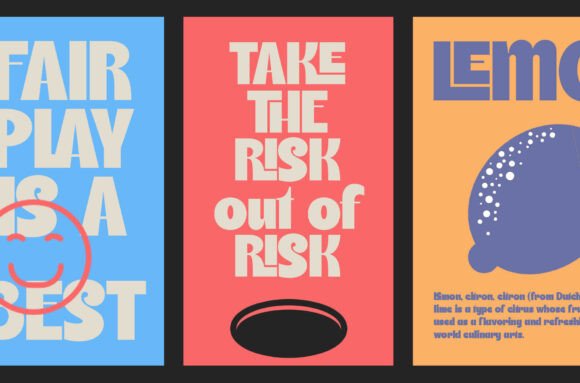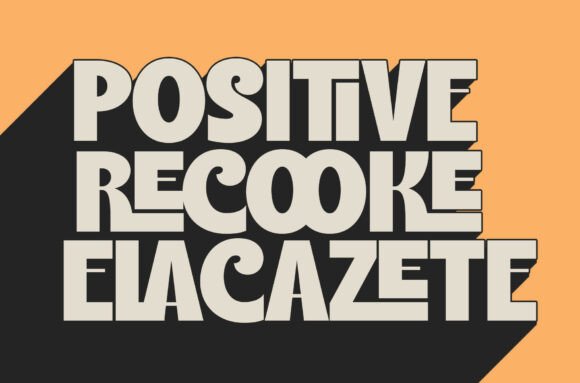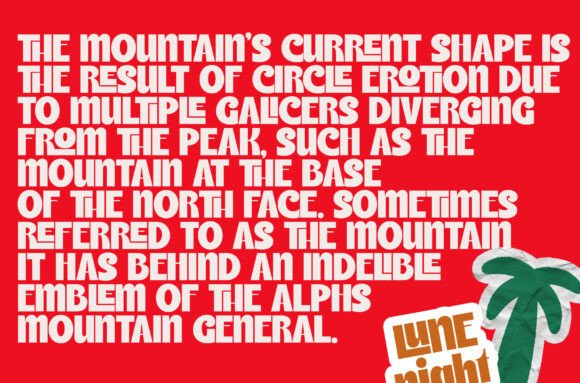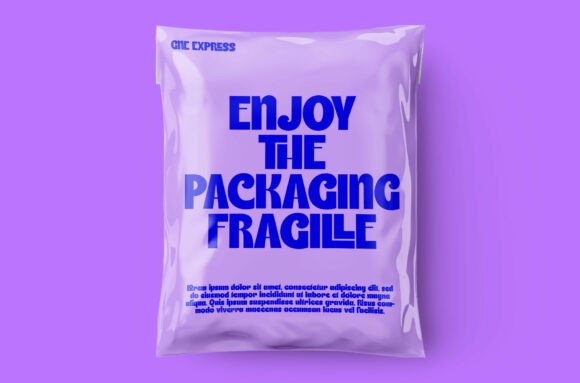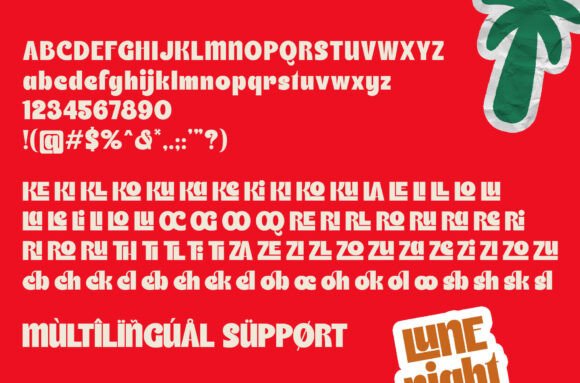
Introduction to Lune Night Font
Have you ever stared at a blank canvas, searching for the perfect font to bring your creative vision to life? The moment when the right typeface clicks, and your design transforms from ordinary to extraordinary, is a magical one. For designers, this moment is a constant quest, and we’re excited to introduce a game-changing tool that can elevate your projects to new heights: the Lune Night Font.
This powerful modern display font is more than just a design resource – it’s a statement piece that exudes strength, stability, and contemporary sophistication. With its extra-bold weight and clean, solid letterforms, the Lune Night Font is perfect for a wide range of creative projects, from book covers to magazine layouts, and from logo designs to photography captions.
- Unique, high-quality design ideal for creative projects requiring a touch of elegance.
- High-resolution font, suitable for use in print materials, digital displays, and other applications requiring crisp, clear text.
- Designed to be highly legible, making it an excellent choice for body text, titles, and other text-based elements in creative projects.
Honest Review: Lune Night Font
As a designer, I’m always on the lookout for high-quality design resources to elevate my creative projects. The Lune Night Font is one such find that has caught my attention. Let’s dive into the details.
- Stylish aesthetic: The Lune Night Font boasts a unique and captivating design that’s perfect for adding a touch of elegance to your projects.
- Limited language support: The font may not support certain languages or character sets, which could be a limitation for designers working on international projects.
- No bold or italic variations: While the font is stylish, it’s limited to regular weight, which might not be ideal for projects requiring emphasis or emphasis.
Overall, the Lune Night Font is a great addition to any designer’s toolkit. Its unique design and free download make it an attractive option for creative projects. While it has some limitations, it’s a high-quality resource that’s worth considering for your next design project.
Tips for Getting the Most Out of Lune Night Font
To get the most out of Lune Night Font, use it for your creative project to create a high-quality design with a transparent background. Experiment with different font sizes, colors, and combinations to achieve a unique look.
Lune Night Font is perfect for designing:
- Marketing materials, such as brochures and flyers
- Branding materials, such as logos and business cards
- Web design elements, such as headings and buttons